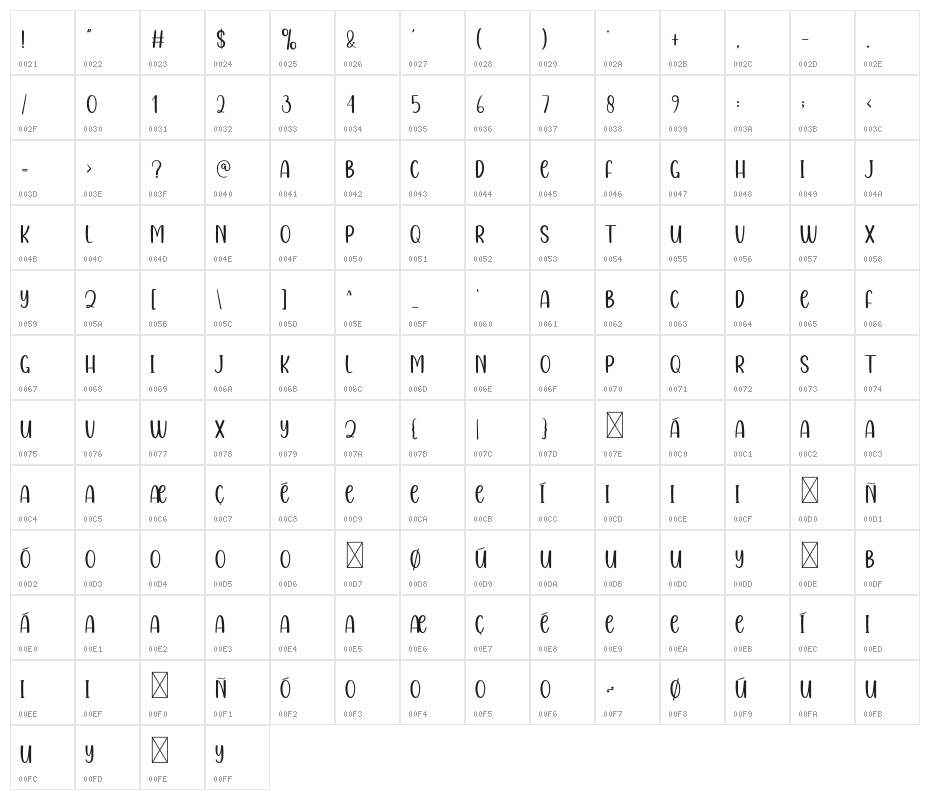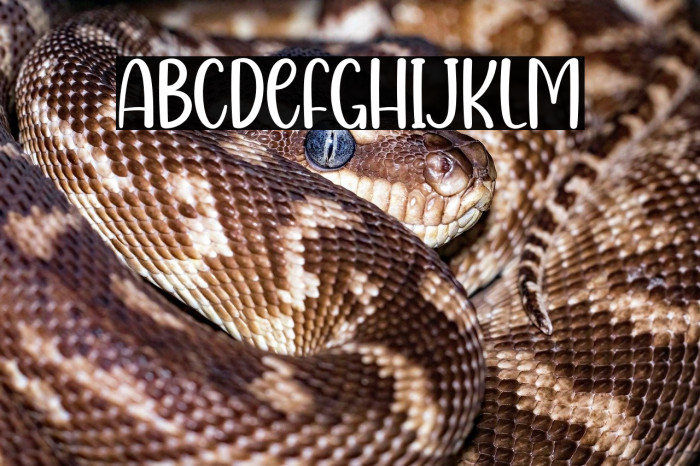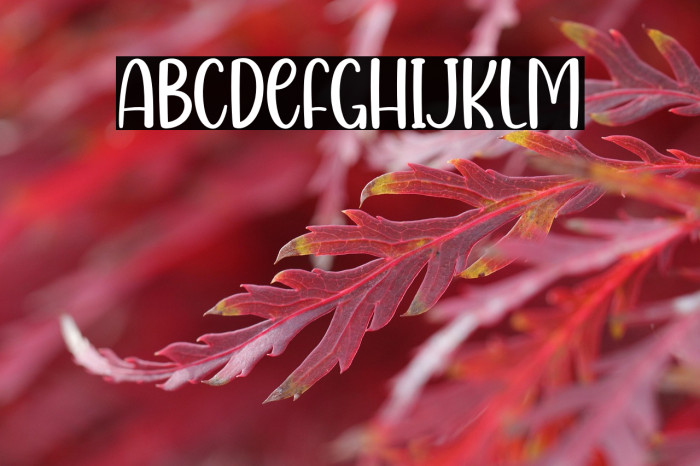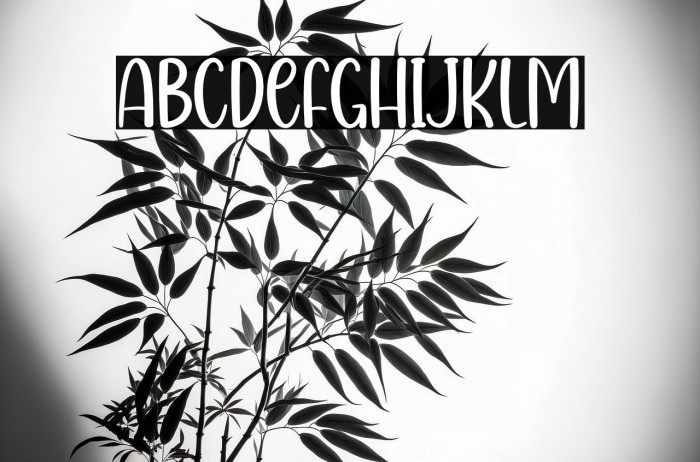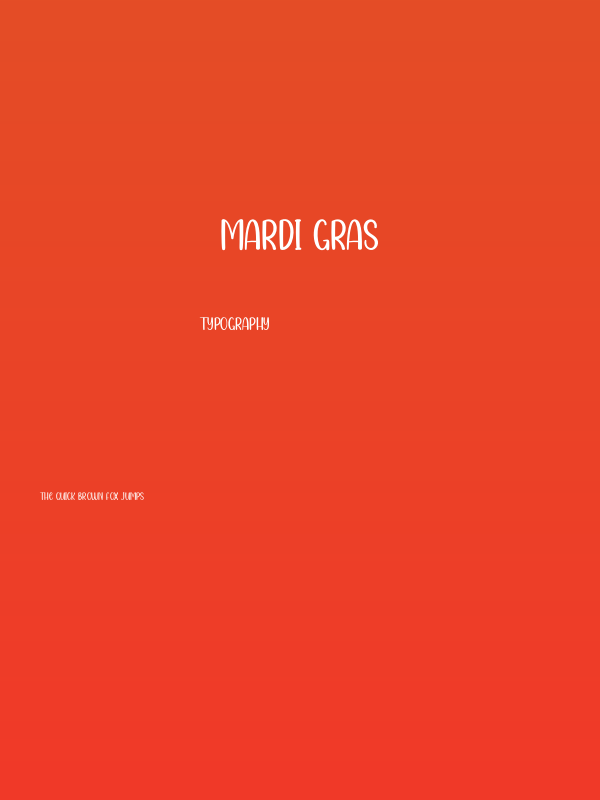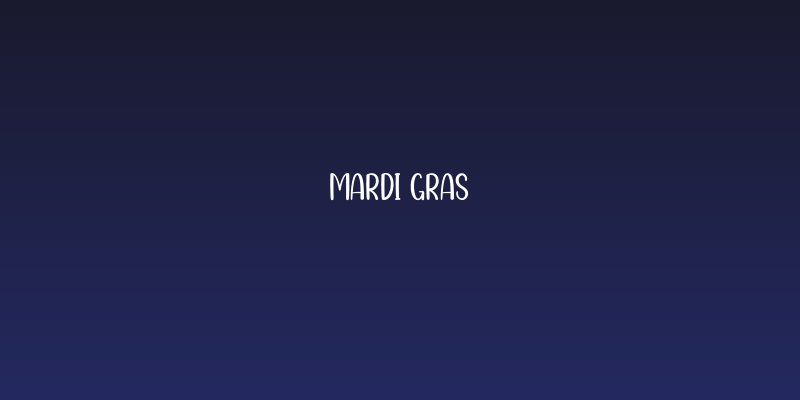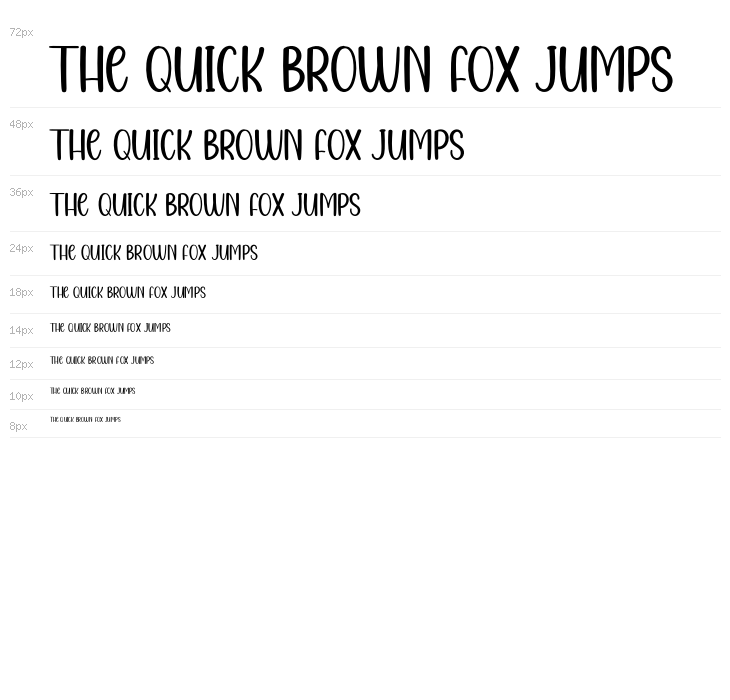
Mardi Gras Font
Mardi Gras Description
A playful and whimsical handwritten font with a casual and friendly appearance, featuring rounded edges and a slightly irregular baseline.
| Overall Style | Casual and whimsical |
| Use Case | Headlines, Invitations, Greeting cards |
| Proposed Projects | Greeting cards, invitations, playful branding. |